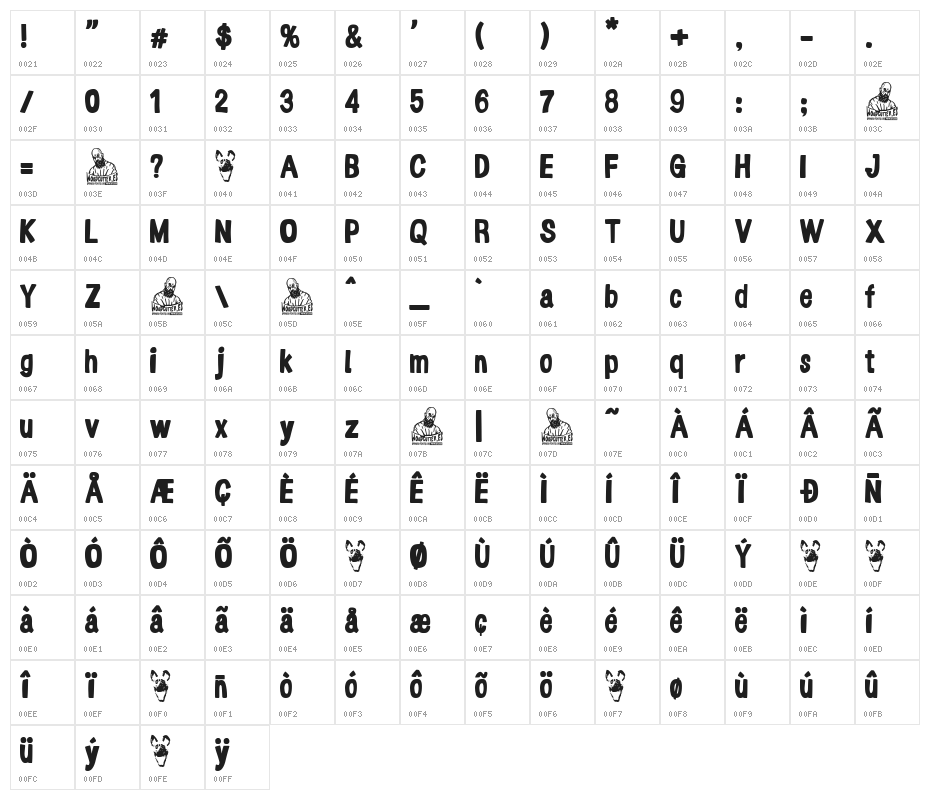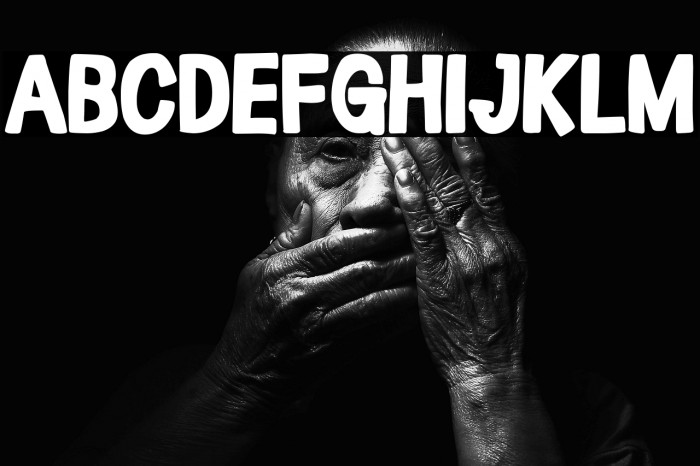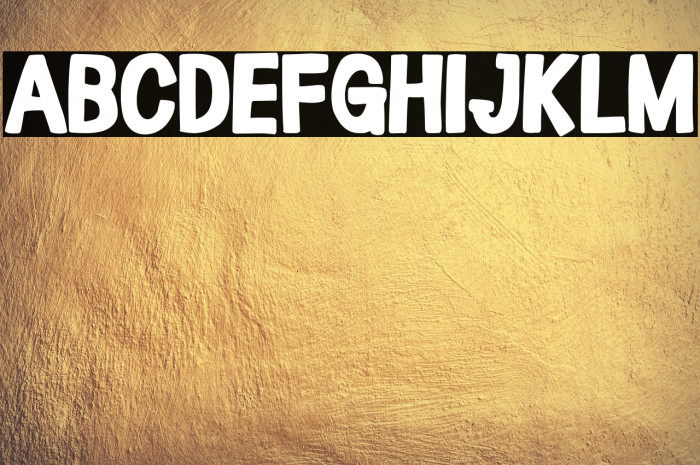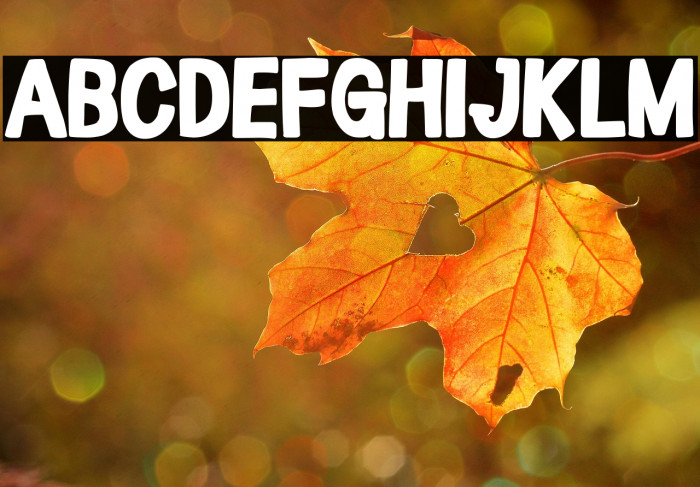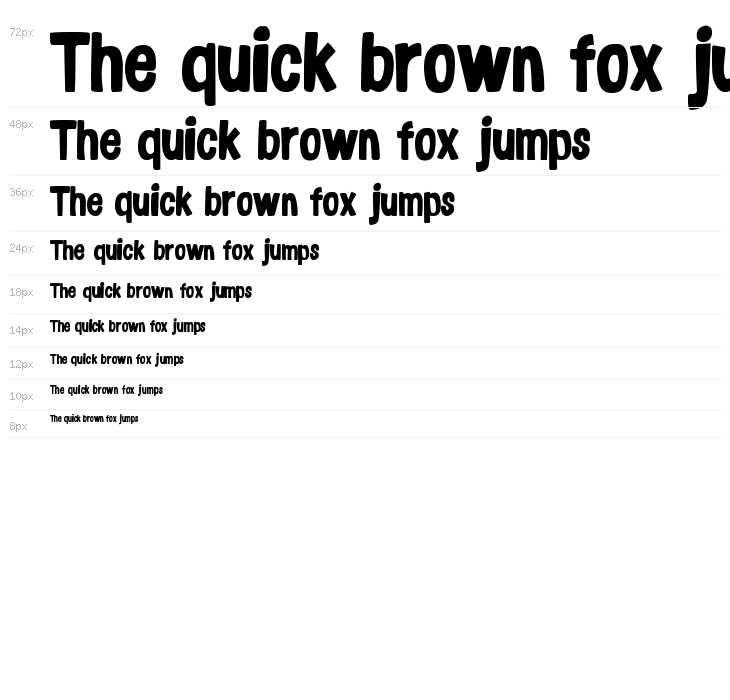
Congreso de Perros Font
Congreso de Perros Description
This font features a playful and bold design with rounded edges and a slightly irregular shape, giving it a hand-drawn appearance. The uppercase and lowercase letters maintain a consistent thickness, contributing to a cohesive look. The numbers and special characters follow the same style, ensuring uniformity across all elements. This font's unique character is emphasized by its slightly condensed form, which adds to its charm and readability. The overall style is casual and friendly, making it suitable for projects that require a touch of whimsy and approachability.
| Overall Style | Playful, Casual |
| Proposed Projects | Ideal for children's books, playful branding, casual invitations, and creative posters. |